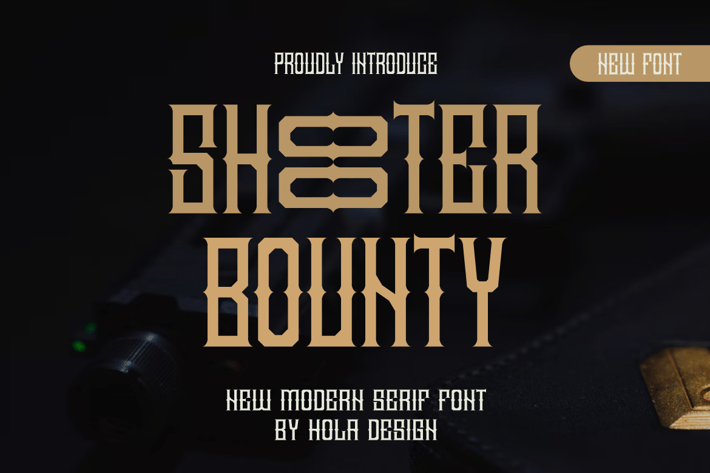
Shooter Bounty - Military Serif Font
Shooter Bounty Font is unique . Ready to use for your design like labeling, movie sceen, poster, movie title, gigs, album covers, logos, and much more.